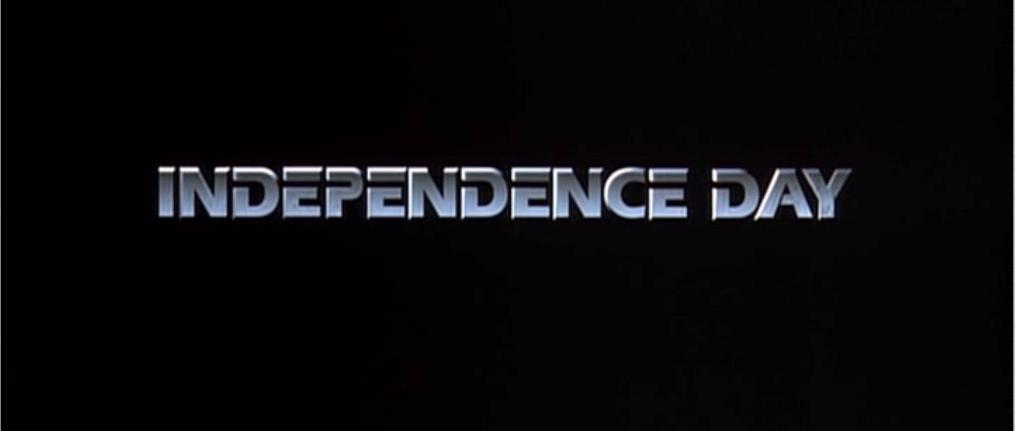
Font Question: Independence Day ID4
im trying to find the font used in the original Independence Day
im trying to find it for a project I’m working on. Any help would be appreciate.
Looks custom to me. Take the graphic and post into a vector drawing program as a graphical template, and make your own graphic font... enough in the 'Independance Day' character set to do a full alphabet.
If you go on google and type in "font finder", you will usually get a list of websites where you can upload that picture with the font, and it will do its best to identify it.
It is custom to the movie, but there is probably someone out there that has made an exact or close to it type font.
Thx I did try a few of the sites but they didn’t work for it
Looks like Simian, which is actually a Planet of the Apes font.
Possibly modified, I don't remember if there's a variant with cutouts.
Looks like that is one that is a bit tricky. Surprised no one has made something thats at least close.
If you're re-creating that actual title, here's an example of a 'quick and dirty' Photoshop job using Eras Bold, which was the closest font I could find it my library. The rest is a gradient overlay, and a bevel layer style. It's not quite right, but the font could be edited in Illustrator to match the cut outs, and you'd be 99% there.